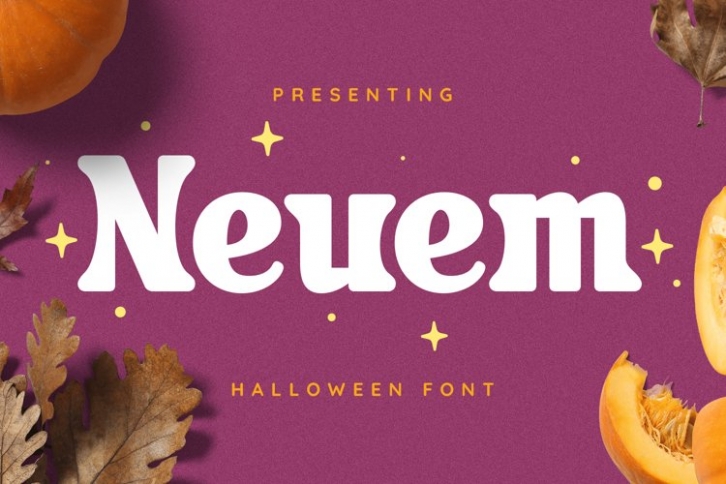
Neuem is a great font that was designed by plusstore. Imagine the amount of combinations you can create using this font! The archive is 18.16 MB and it was released on October 24, 2021. Neuem looks beautiful on wedding invitations, greeting cards, logos, posters, labels, t-shirt designs, logos, business cards and is perfect for use in ink or watercolor works, fashion, magazines, packaging and food menus, children's books and more!